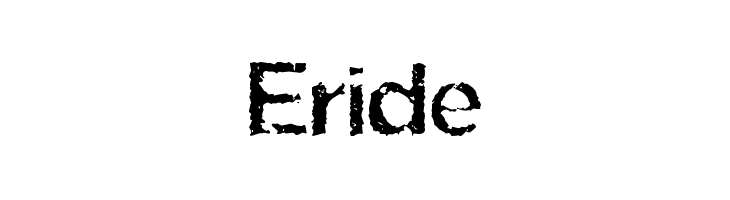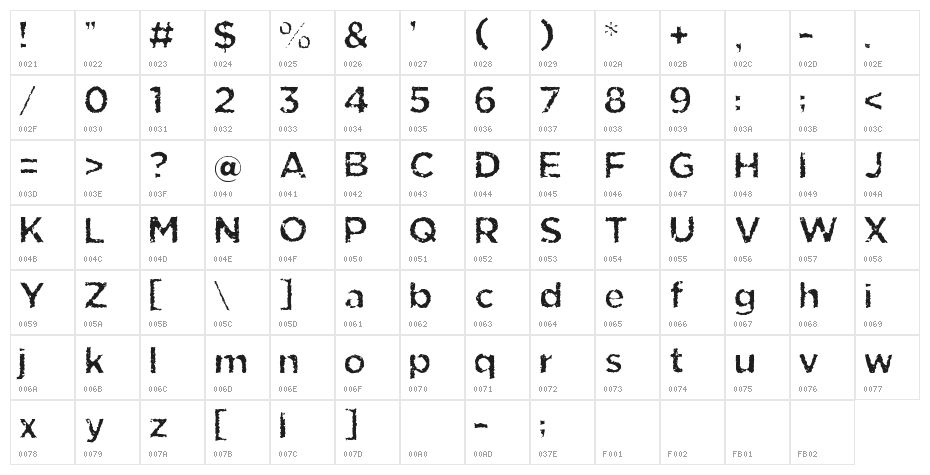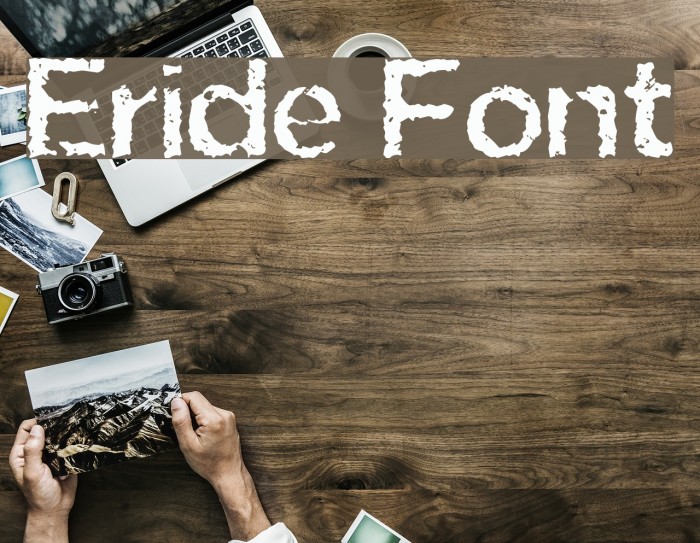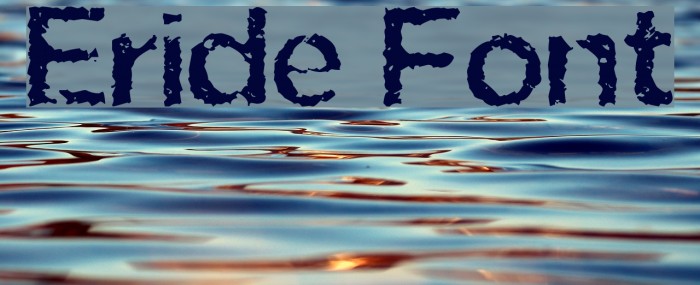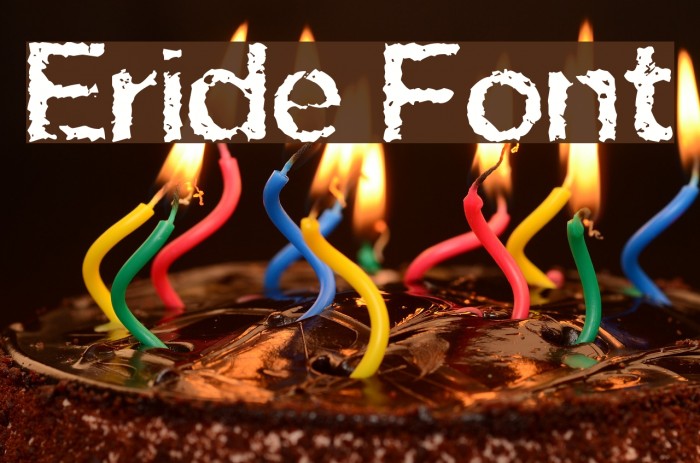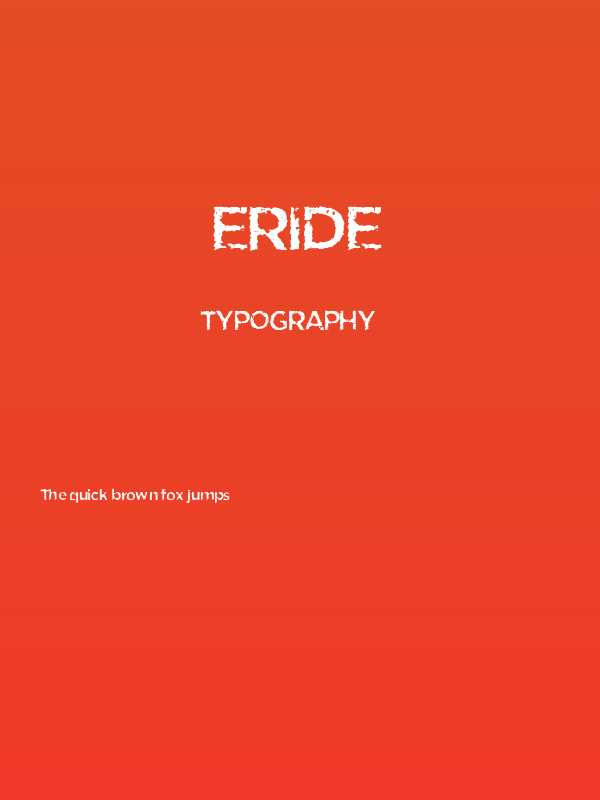
Eride Font
Eride Description
This font features a rugged, distressed appearance with a textured, grunge-like effect. The characters are bold and slightly irregular, giving them a hand-crafted, organic feel. The uppercase and lowercase letters maintain a consistent style, with rough edges and a worn-out look that adds character and depth. The numbers and special characters follow the same design, ensuring a cohesive appearance across all glyphs. This font is ideal for projects that require a bold, eye-catching design with a touch of edginess and personality.
| Proposed Projects | Perfect for album covers, posters, branding for edgy products, or any design needing a bold, textured look. |